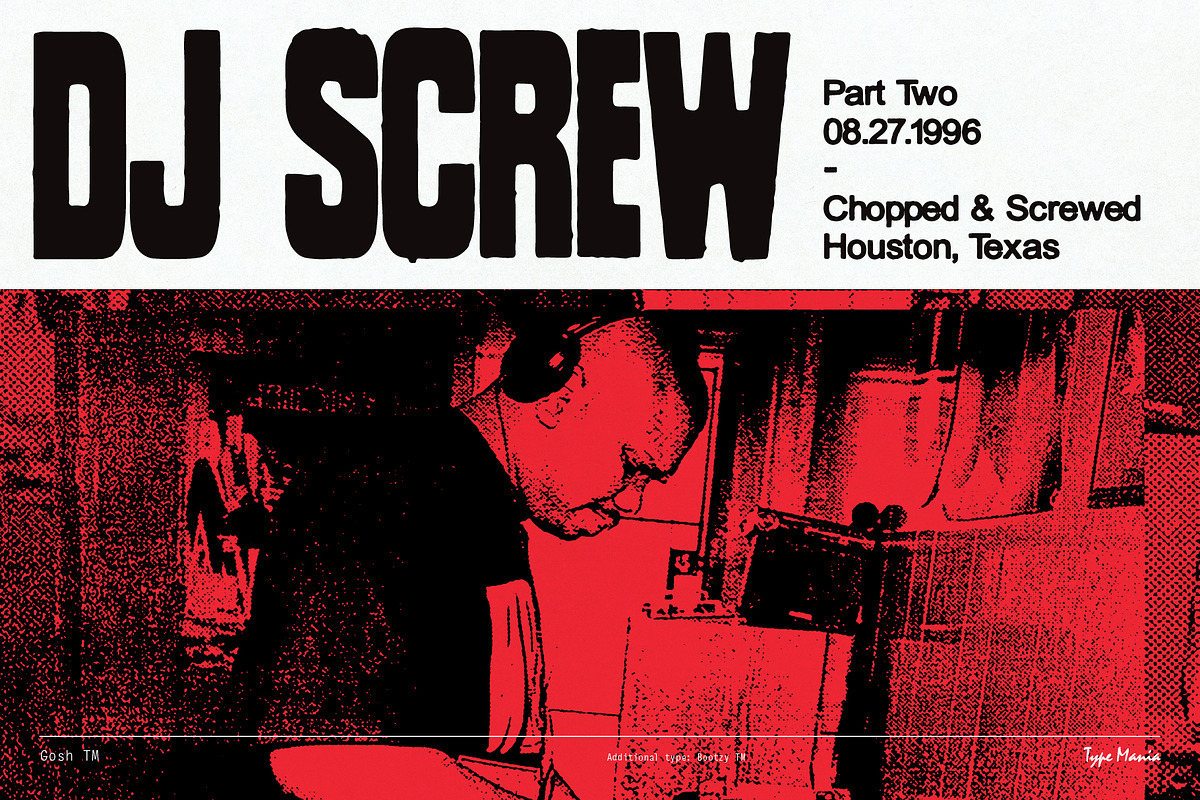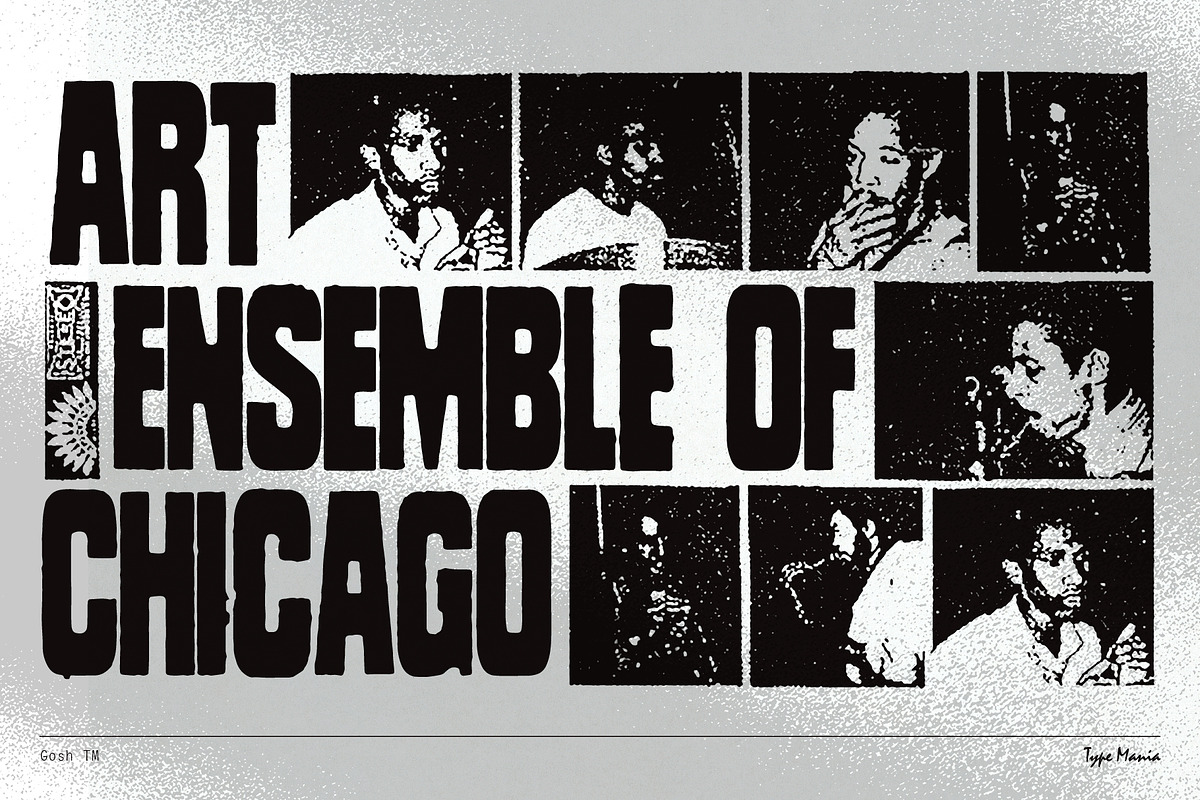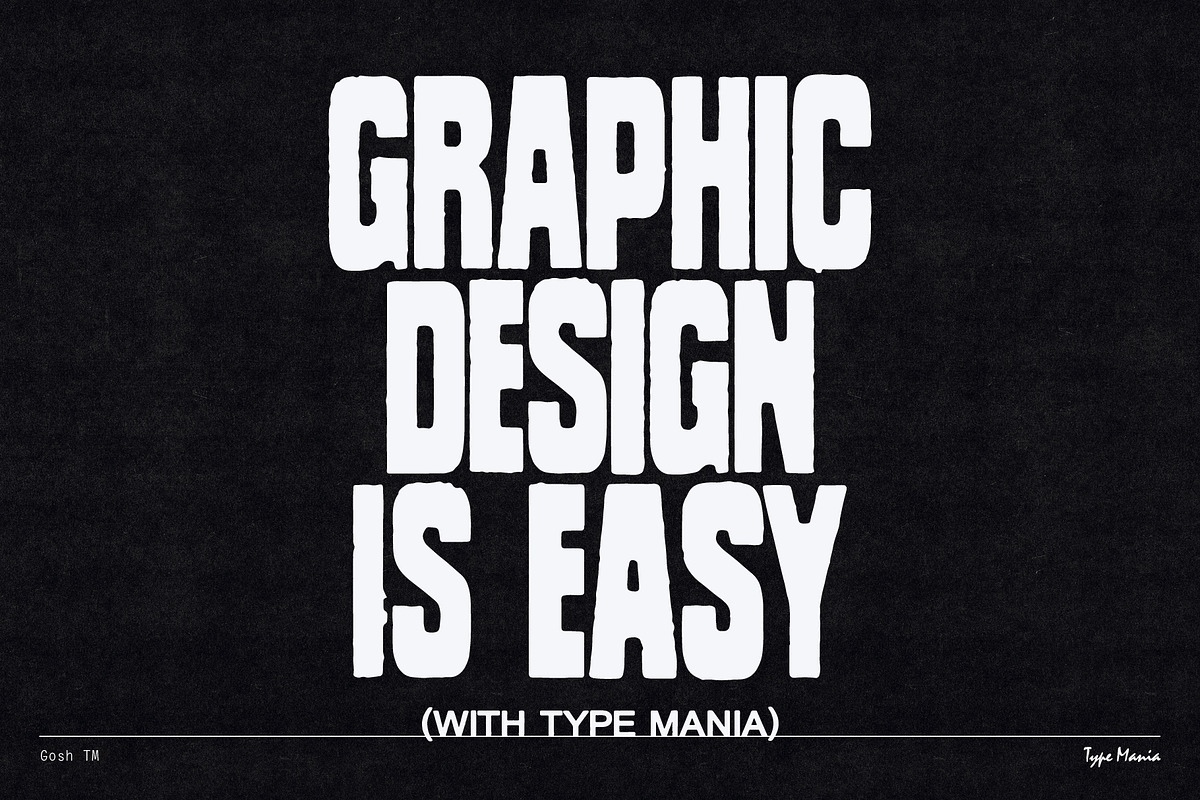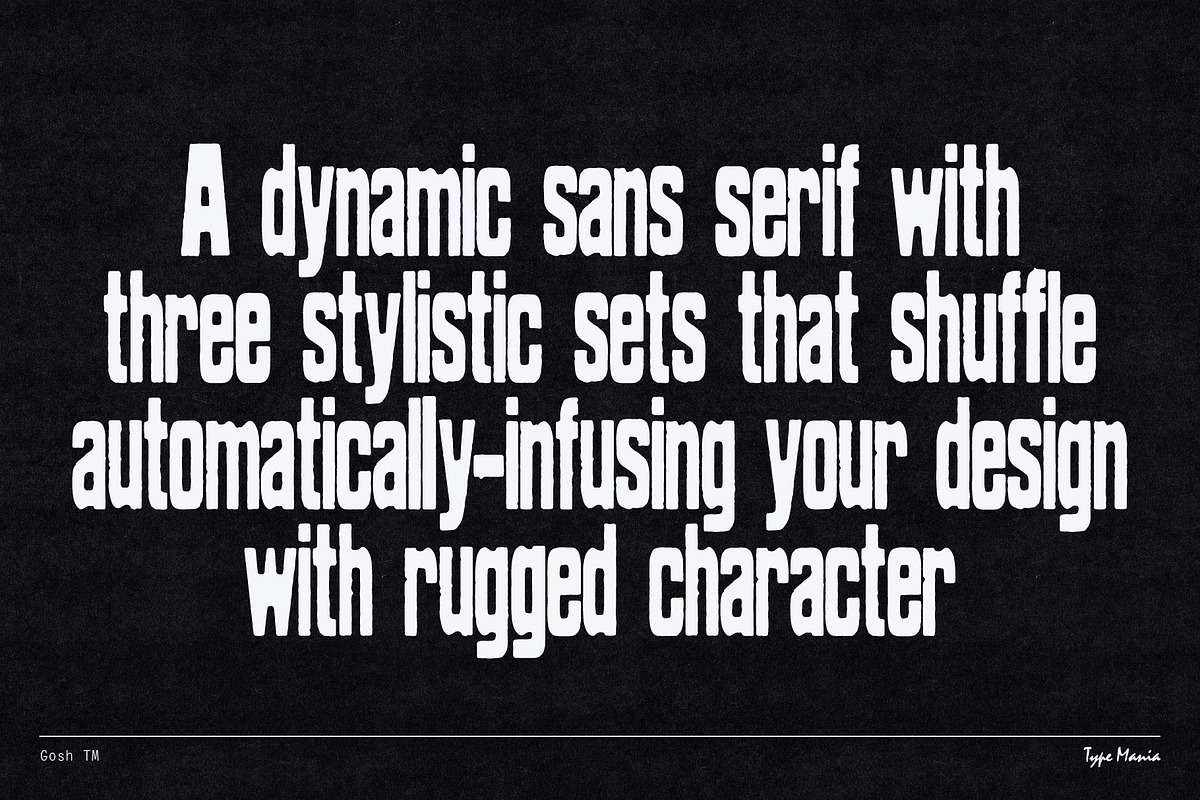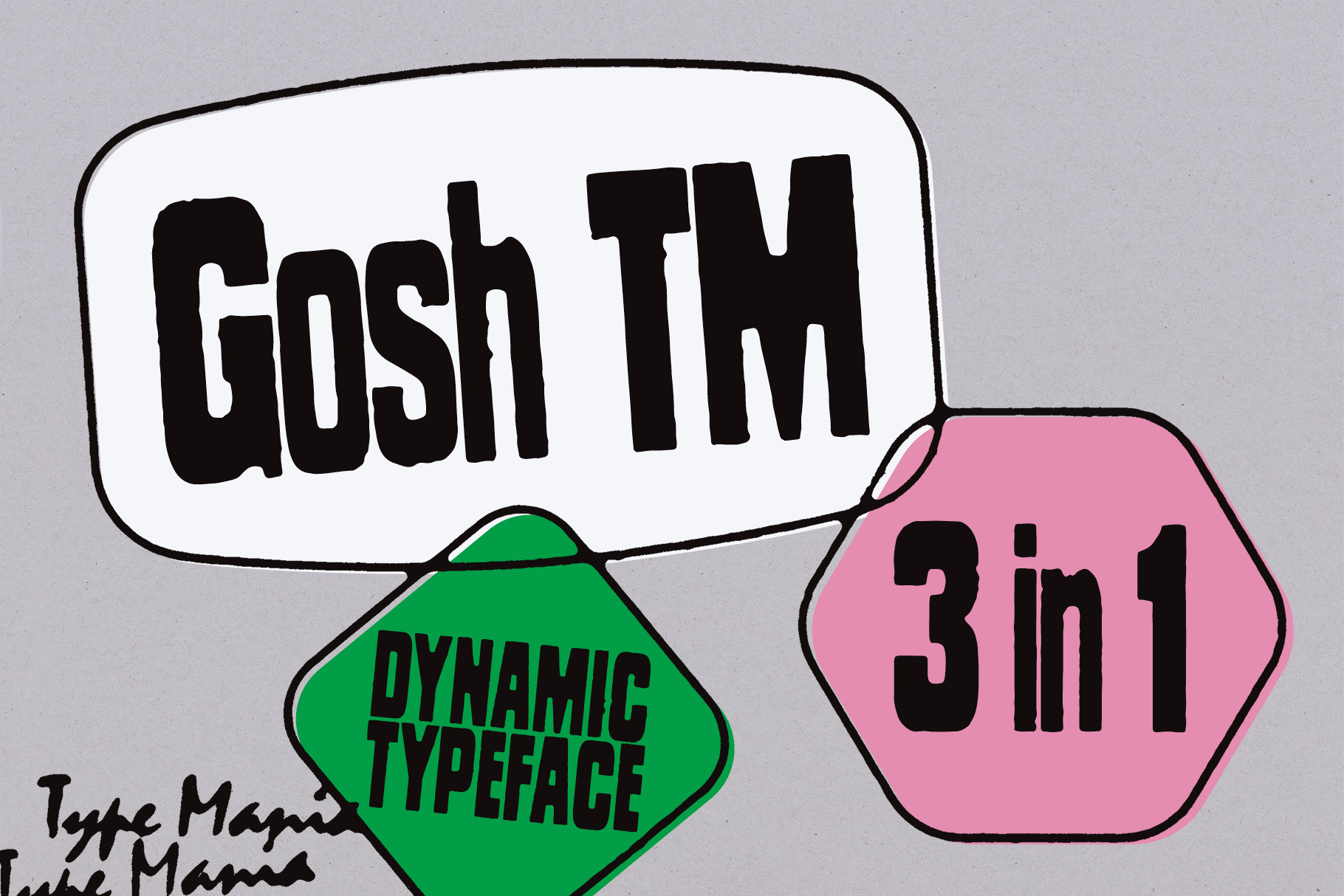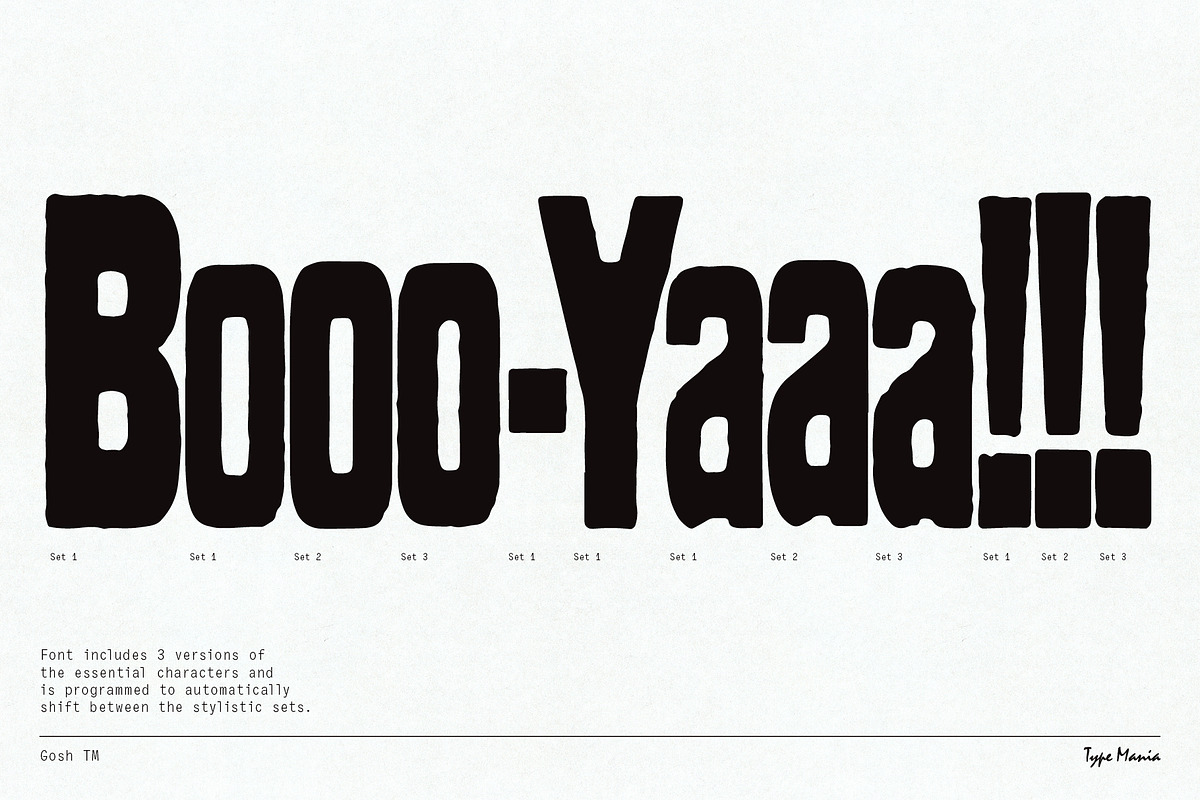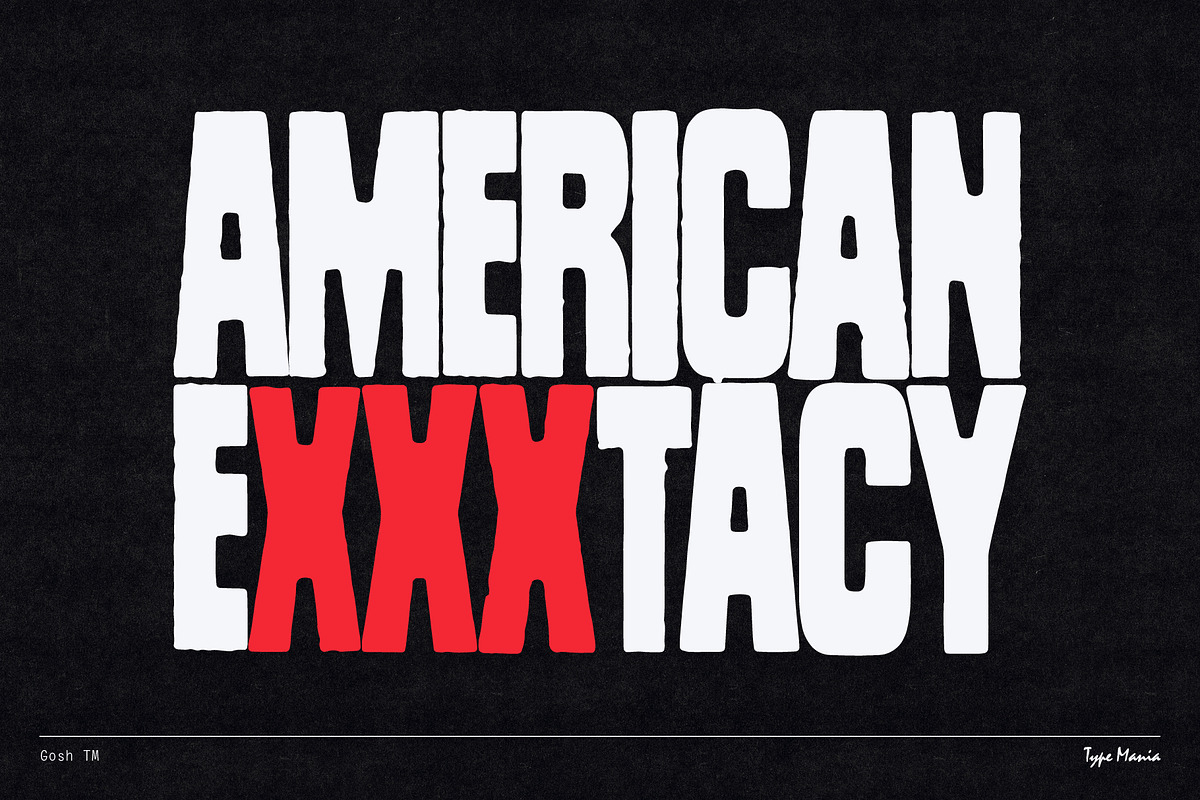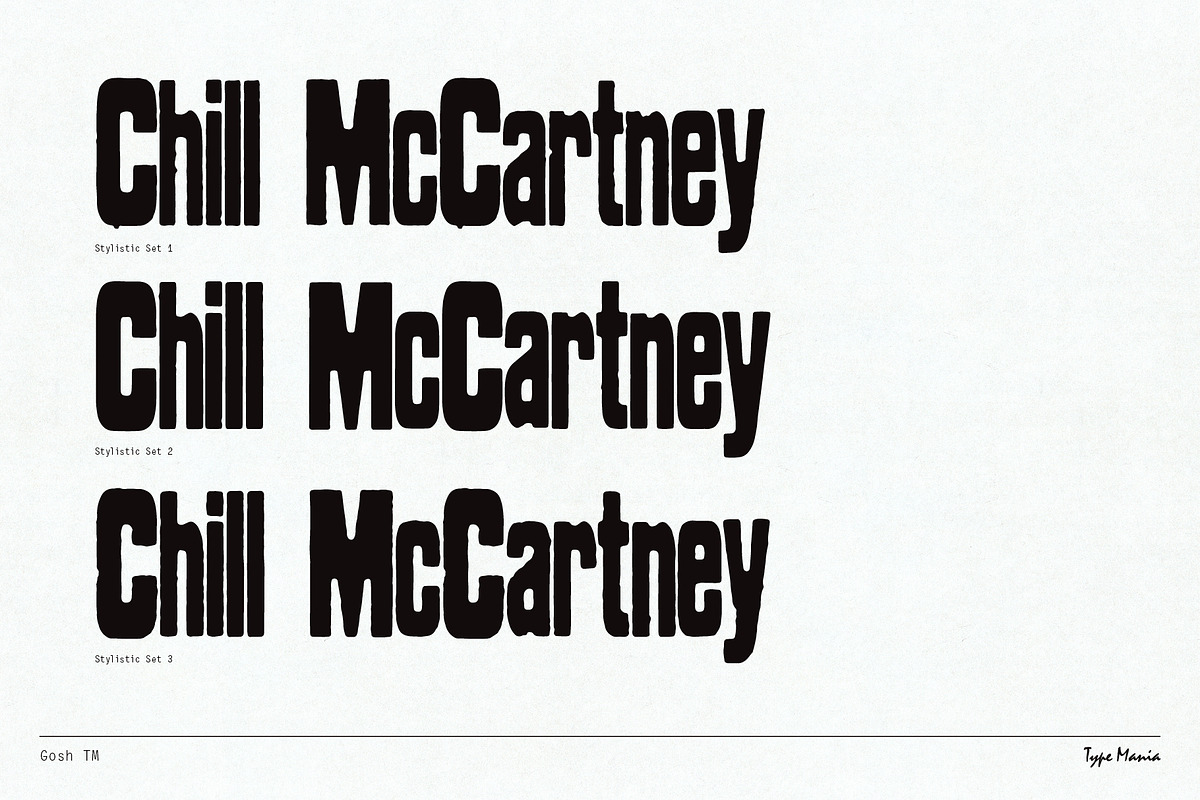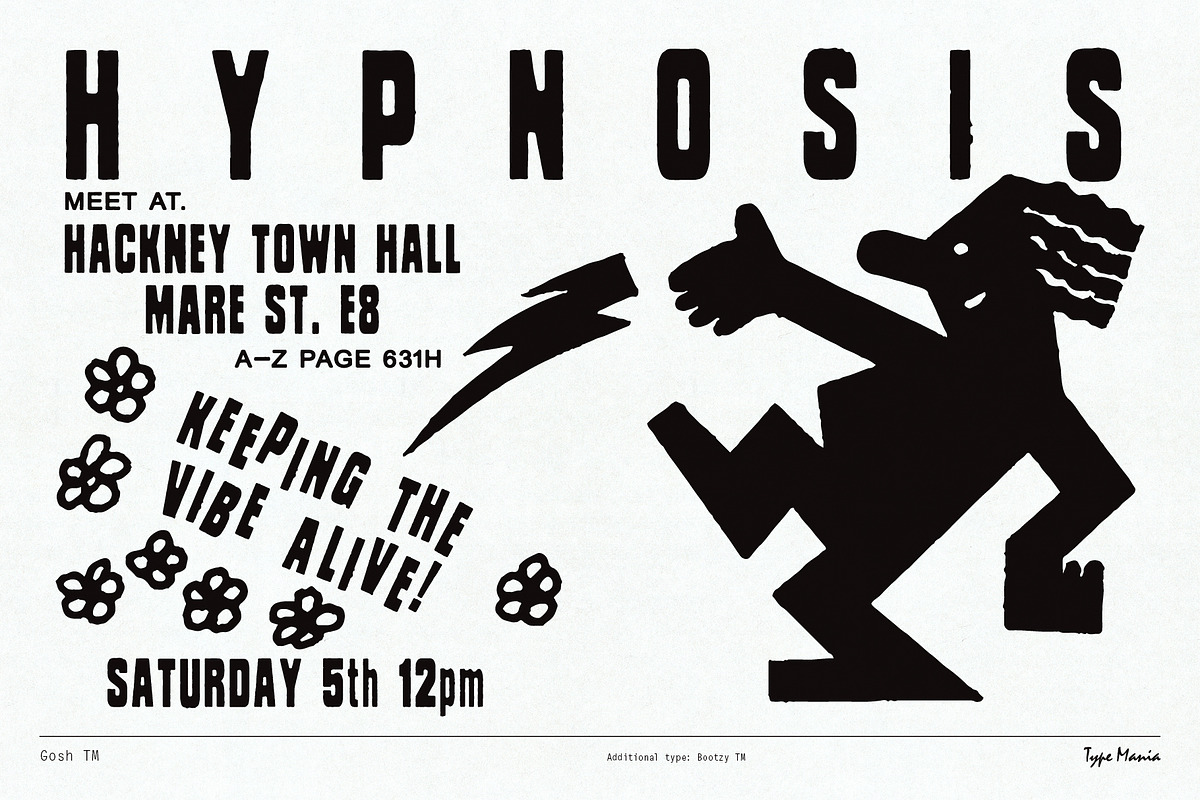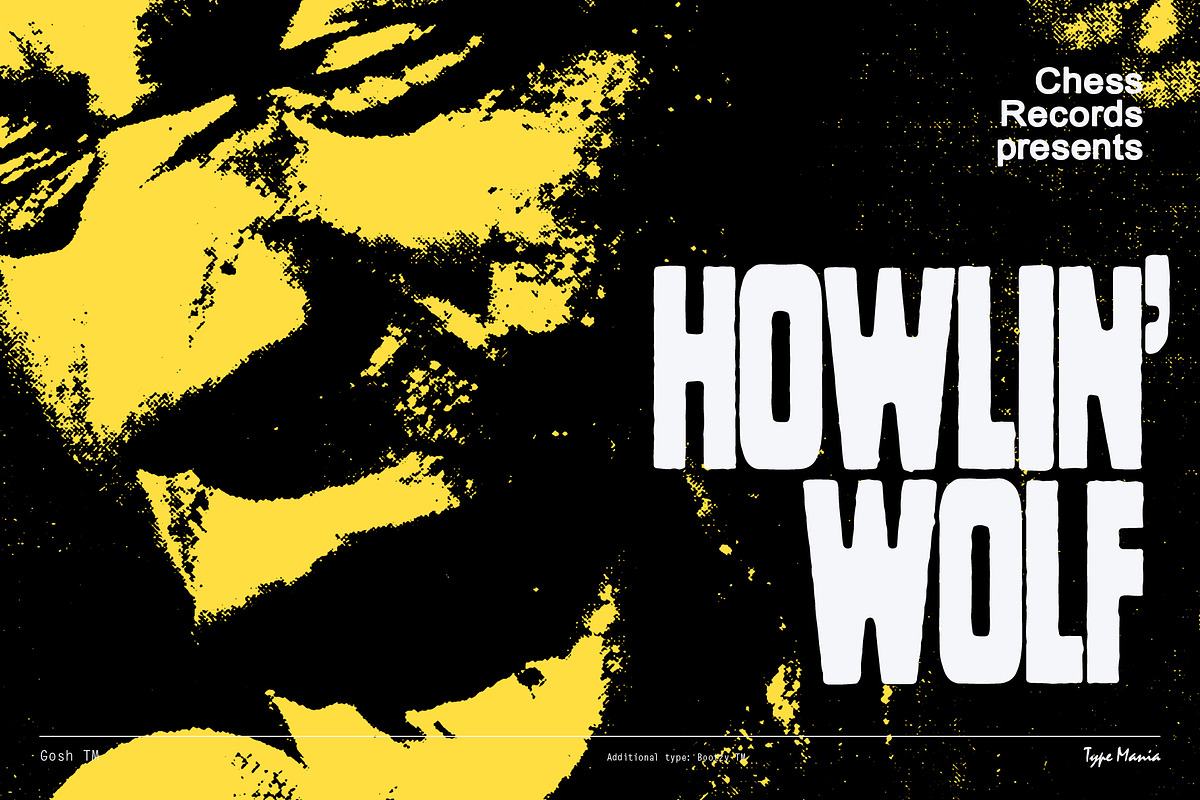
Gosh TM – Soulful Dynamic Typeface
Introducing Gosh TM. A soulful typeface merging raw beauty with cutting-edge design features. Not only does this display font command attention visually, but it also offers 3 interchangeable stylistic sets, making the designers job that much easier.
OpenType features
- 3 stylistic sets
- The font is programmed to automatically shift between the stylistic sets whenever the same glyphs are typed side by side